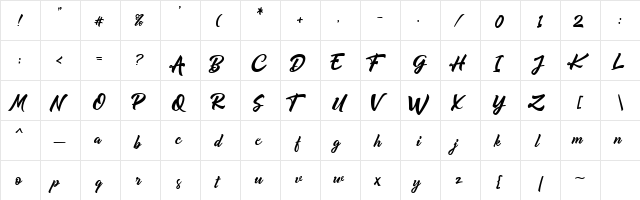
Qrayolla Script Regular
Design Context for Qrayolla Script Typeface
Qrayolla Script brings a calligraphic fluidity to the page — its connecting strokes and expressive curves give it an unmistakably human quality.
Font Pairing: Combine Qrayolla Script with a simple geometric sans for maximum contrast — the tension between flowing curves and clean structure is a classic typographic pairing.
Pro Tip: Pair Qrayolla Script with a clean sans-serif for supporting text. The contrast between fluid script and geometric structure creates an elegant typographic hierarchy.